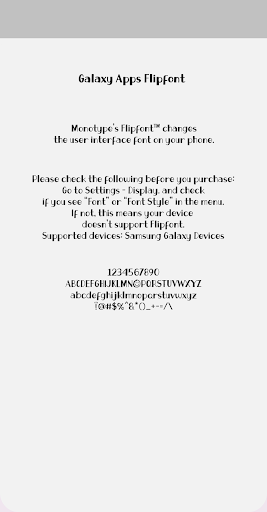
unusmileagain
This typeface is attractive with the natural feel of the handwriting type. We recommend attractive handwriting.A smiley shape is the point with a capital letter O.